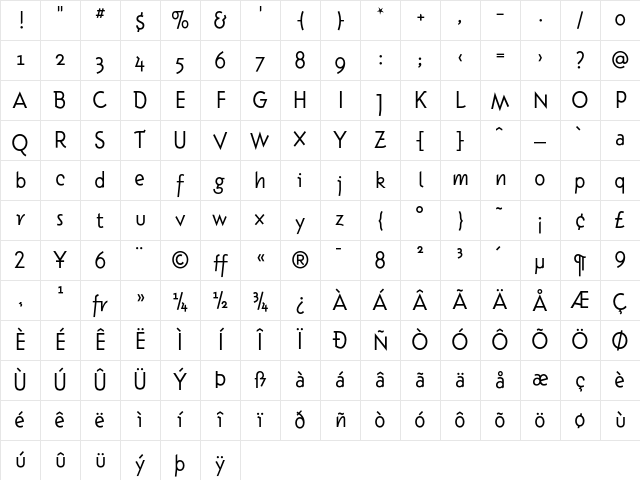
Instanter Light Free Font
Instanter Light
Instanter Family
Instanter Light
Design Context for Instanter
Instanter is a composed and adaptable typeface that performs quietly and consistently across a wide range of design contexts. Its slender proportions lend an understated elegance to any composition.